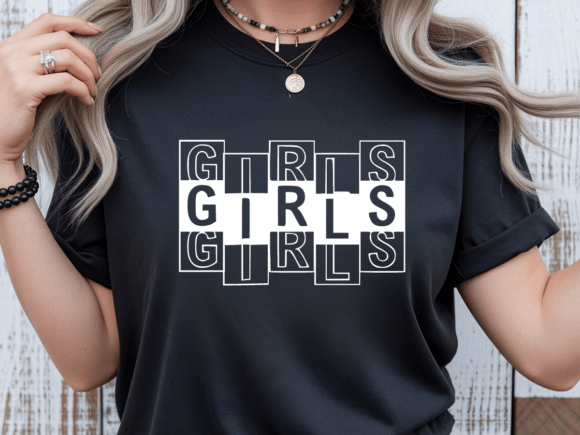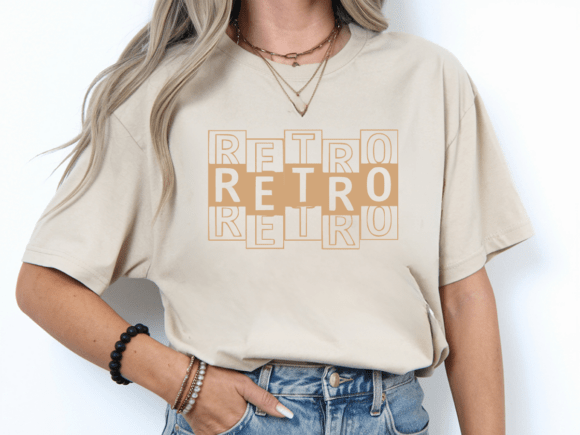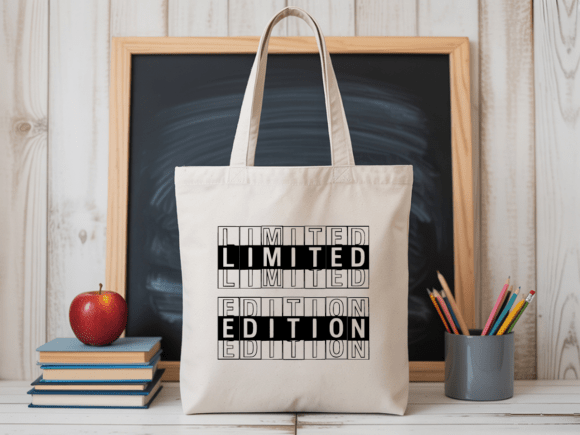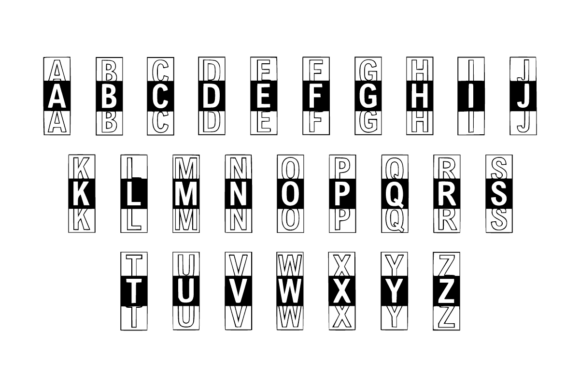
Introduction to Minions Font
๐ฆ Minions โ Modern Stacked Display Font โฌ Level up your design game with Minions, a bold and powerful display font featuring a unique stacked layout effect.
This font is designed to grab attention with its modern, geometric, and layered aesthetic, making it perfect for high-impact titles and trendy streetwear designs The Minions font provides a dynamic visual rhythm by repeating letter outlines above and below the solid main character, creating a built-in โstackedโ look that is ready to use without extra effort.
Key Features of Minions Font
Why Choose Minions Font?